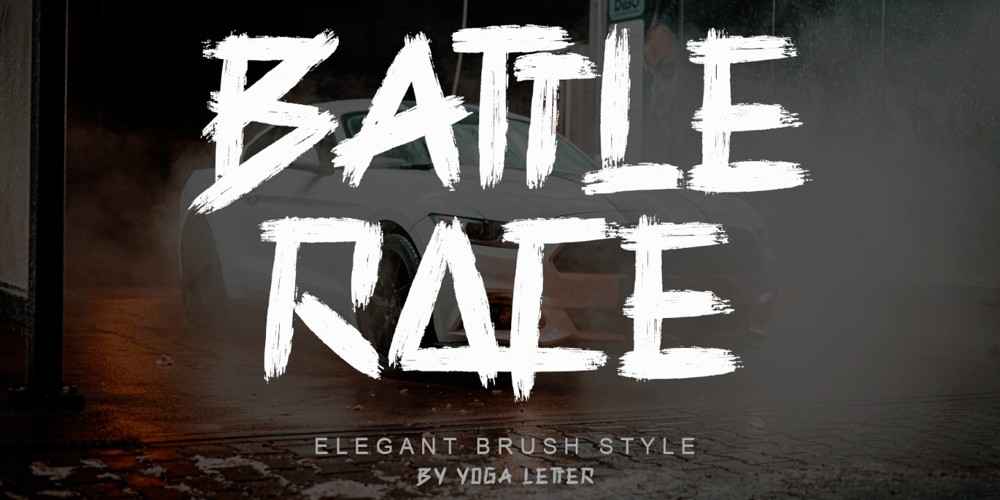
Battle Race Font Family was designed by Isroni Yoga Prasetya and published by Yoga Letter. Battle Race contains 1 styles and family package options. “Battle Race” is a unique, elegant and modern brush font. This font is equipped with uppercase, lowercase, numeral, punctuation, ligatures and multilingual support. Very suitable for stickers, posters, prints, banners, branding, movie titles, book titles, logos, business branding and others.